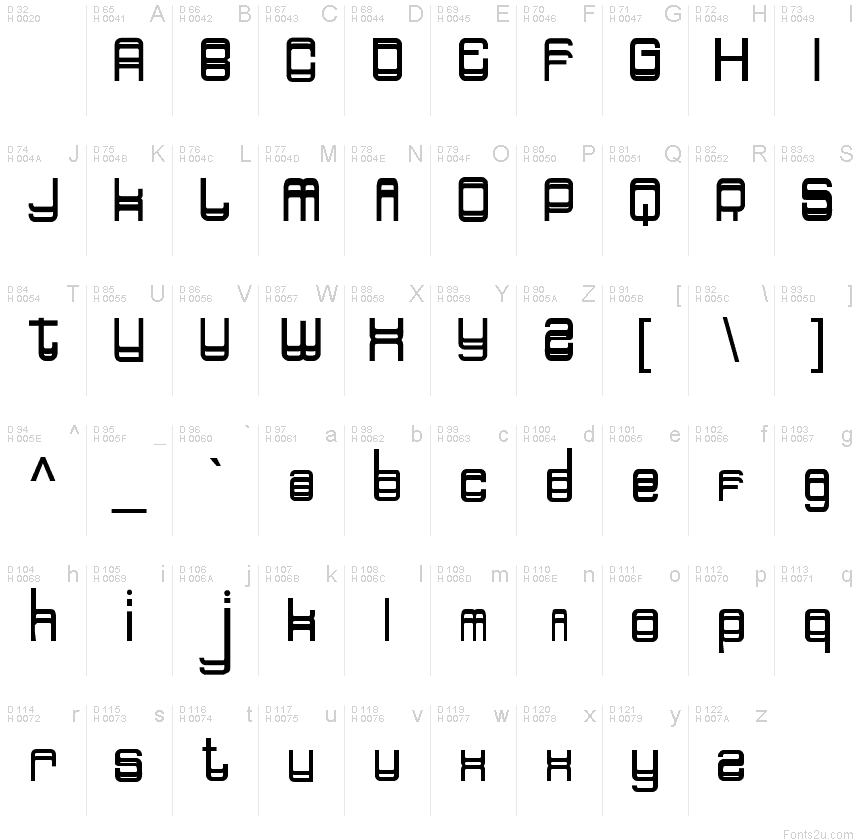
Doppelganger by Paulo W is a free digital outline display font built from broad, rounded bands and narrow inset gaps. Its letters resemble segmented electronic panels, with softened corners and repeated horizontal breaks that give the face a sleek, slightly futuristic profile.
Technology and arcade themes make it a natural fit for game interfaces, event posters, and electronic music graphics. It also suits packaging for gadgets and games. Across those uses, the enclosed stripe motif can echo circuit traces, screen borders, or illuminated signage, letting the lettering become part of the graphic concept rather than serving as a neutral caption.